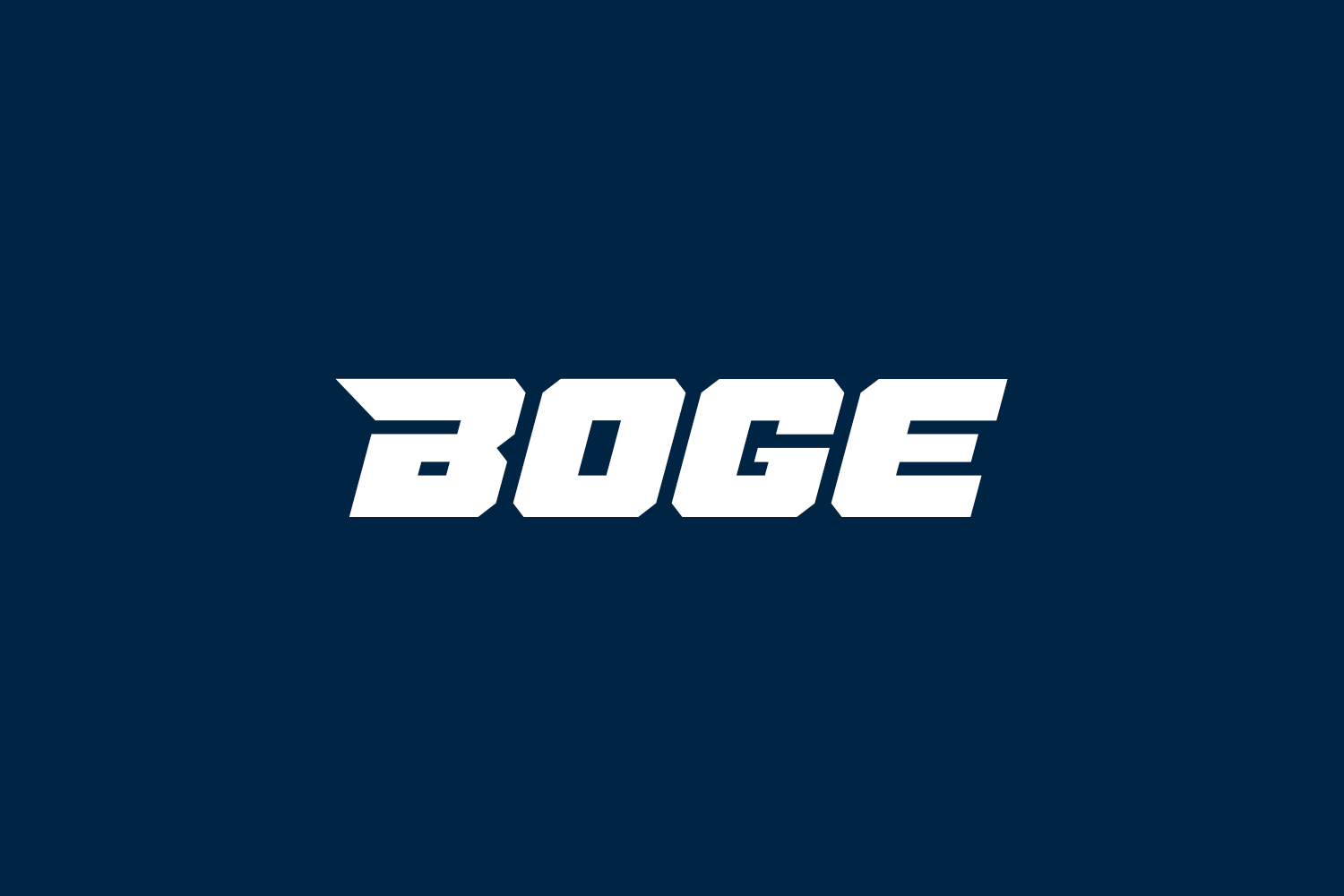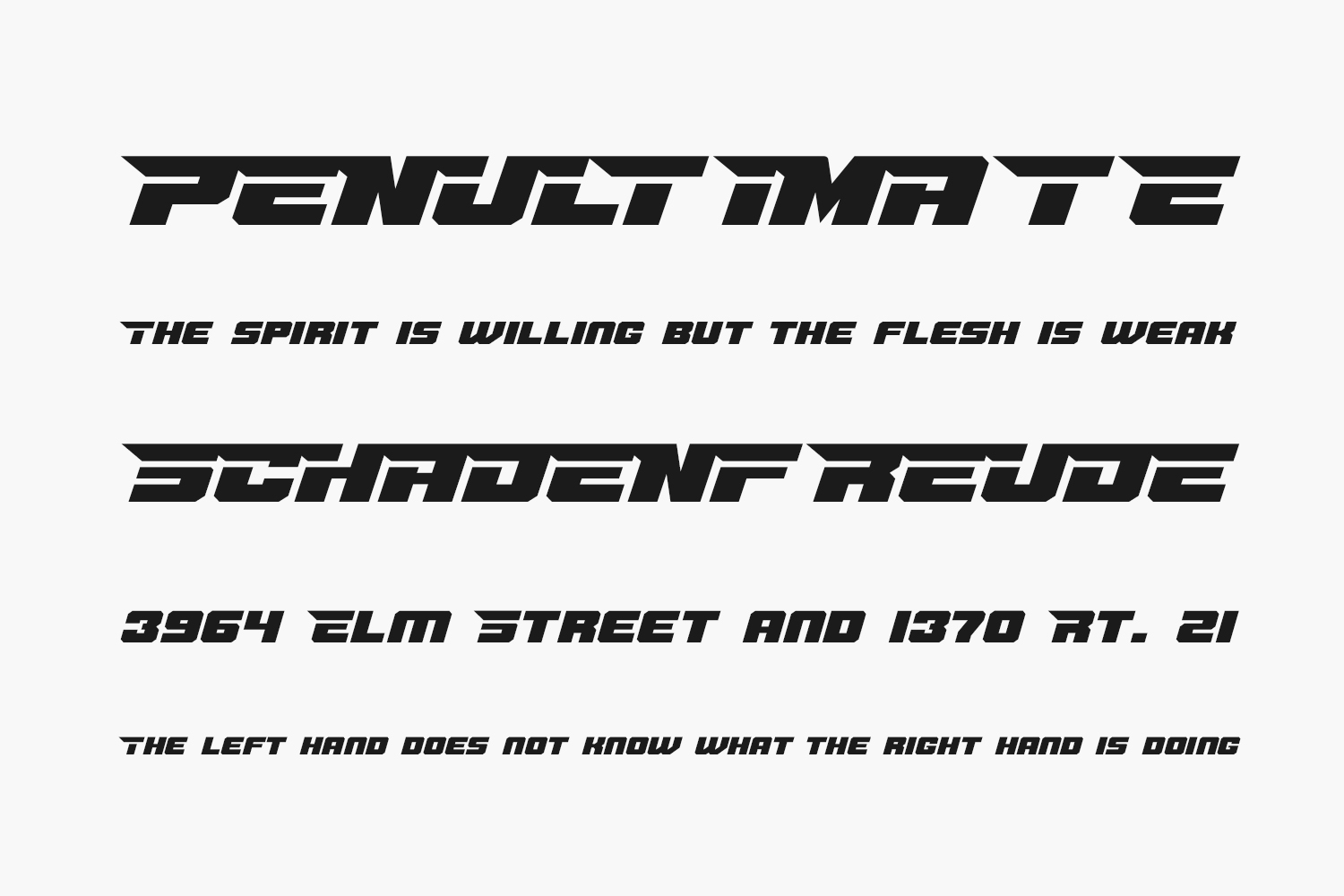
Boge Free Font is a bold and thick lettered display font. Masterfully designed to become a true favorite, this font has the potential to bring each of your creative ideas to the highest level. Boge Free Font was designed by Linecreative and is free for personal use only. Please purchase the full version for commercial use.